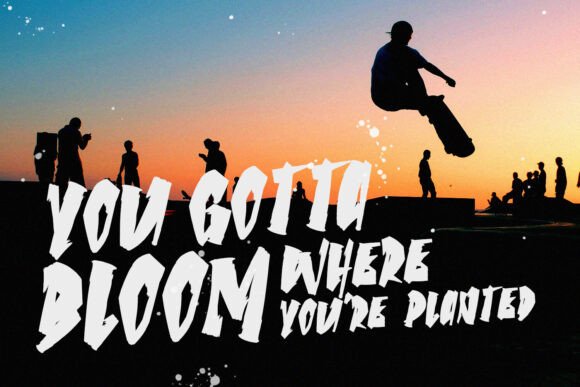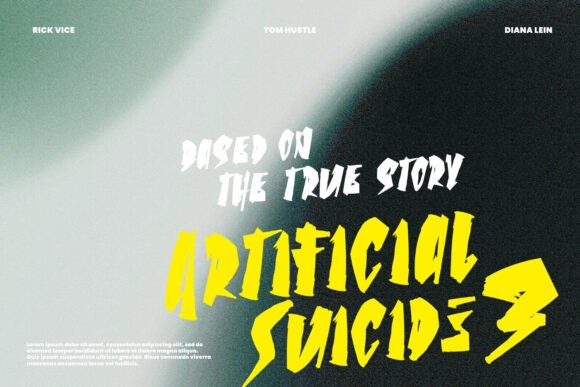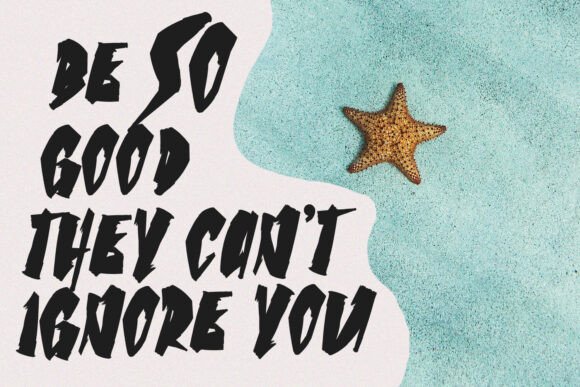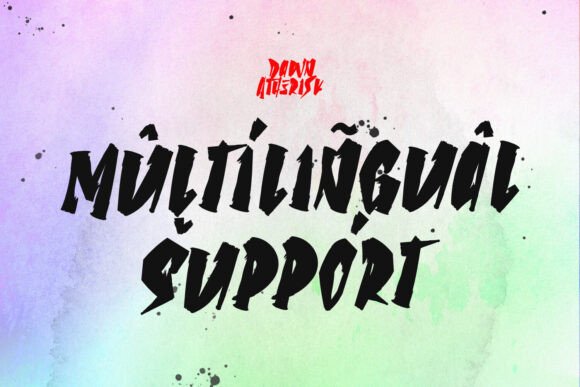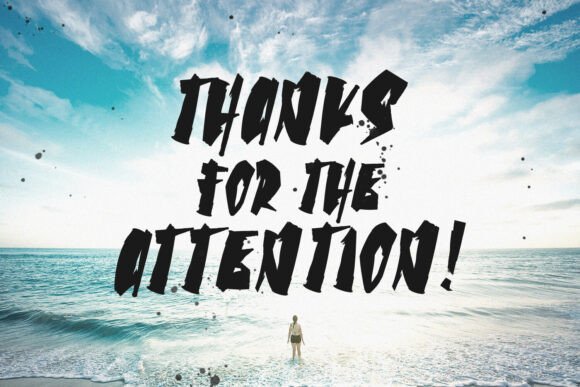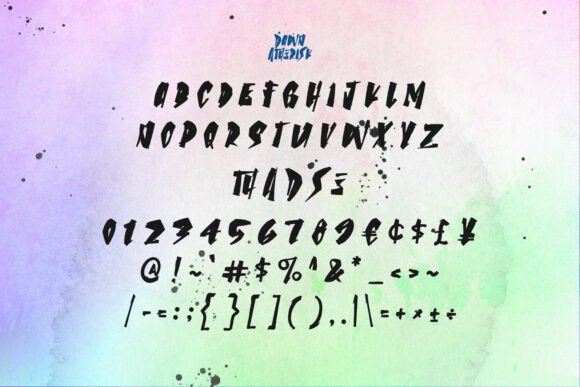
Dawn Atherisk Font: Unleash Your Creativity with this Bold, Edgy Typeface
In the world of typography, fonts play a crucial role in conveying the tone and personality of a brand, design, or artwork. For designers and crafters looking for a typeface that exudes raw energy and rebellious attitude, Dawn Atherisk is an excellent choice. This bold, all-caps brush font is handcrafted with gritty, angled strokes and heavy texture, making it perfect for edgy branding, streetwear designs, music covers, skate culture, and poster artwork that demands attention.
The Making of Dawn Atherisk
Dawn Atherisk is a handmade typeface, carefully crafted to bring a sense of intensity and power to your designs. The font’s creator has poured their heart and soul into designing a unique and bold typeface that stands out from the crowd. With its rough, textured strokes and angled lines, Dawn Atherisk has a distinctive look that sets it apart from other fonts.
Key Features of Dawn Atherisk
- Bold and Edgy: Dawn Atherisk is a bold, all-caps font that’s perfect for designs that need a strong, attention-grabbing typeface.
- Handcrafted: This handmade typeface has a unique, organic feel that’s perfect for designers looking for a distinctive look.
- Gritty Texture: The font’s heavy texture gives it a rough, raw edge that’s perfect for edgy branding and streetwear designs.
- Angled Strokes: The angled strokes in Dawn Atherisk add to its rebellious attitude, making it perfect for music covers, skate culture, and poster artwork.
Use Cases for Dawn Atherisk
Dawn Atherisk is a versatile font that can be used in a variety of design projects, including:
- Edgy Branding: Use Dawn Atherisk to create bold, attention-grabbing logos and branding materials that make a statement.
- Streetwear Designs: This font is perfect for streetwear designs, such as t-shirt graphics, hats, and other apparel.
- Music Covers: Dawn Atherisk is a great choice for music covers, adding a bold, edgy touch to your album artwork.
- Skate Culture: The font’s rebellious attitude makes it perfect for skate culture designs, such as posters, flyers, and stickers.
- Poster Artwork: Use Dawn Atherisk to create bold, eye-catching poster artwork that demands attention.
Why Choose Dawn Atherisk?
With so many fonts available, why choose Dawn Atherisk? Here are just a few reasons why this font stands out:
- Unique Look: Dawn Atherisk has a distinctive look that’s hard to find in other fonts.
- High-Quality Design: The font is carefully crafted to ensure that it’s both visually appealing and functional.
- Versatility: Dawn Atherisk can be used in a variety of design projects, from branding and advertising to music and skate culture.
Dawn Atherisk is a bold, edgy font that’s perfect for designers and crafters looking to add some raw energy and rebellious attitude to their designs. With its handcrafted, gritty texture and angled strokes, this font is sure to make a statement. Whether you’re working on edgy branding, streetwear designs, music covers, skate culture, or poster artwork, Dawn Atherisk is an excellent choice. So why settle for a bland, generic font when you can unleash your creativity with Dawn Atherisk?